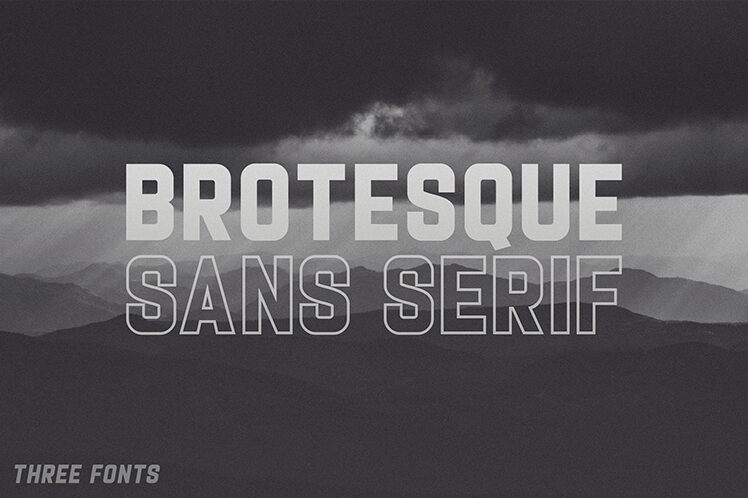
Brotesque
Brotesque font is a bold sans serif font designed by Shanaya Studio. It combines geometric influences with a structured design to achieve an unmistakable, modern look. With its strong presence applied through angular shapes and heavy strokes, the typeface commands attention and provides unique value in terms of aesthetics.
Suitable for a variety of digital projects, Brotesque can be used for flyers, branding designs, logos, product packaging designs, videos titles, web headers or banners among many other concepts. Stay on brand with any corporate design project applying this free font to stationery or even invitations and poster designs.